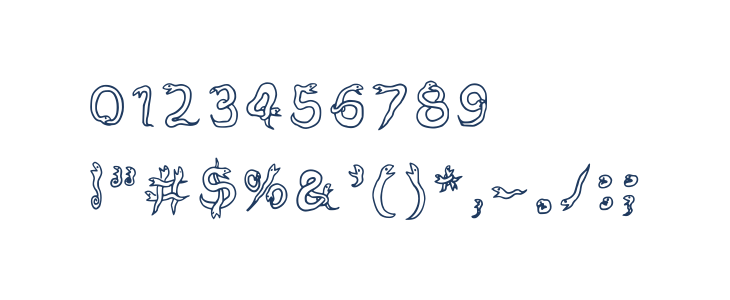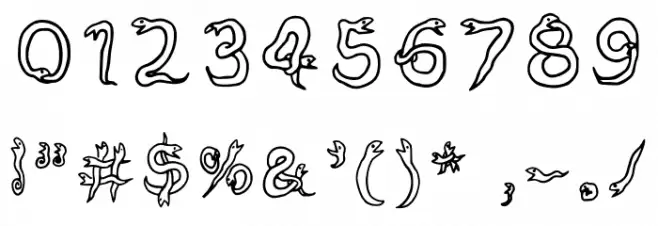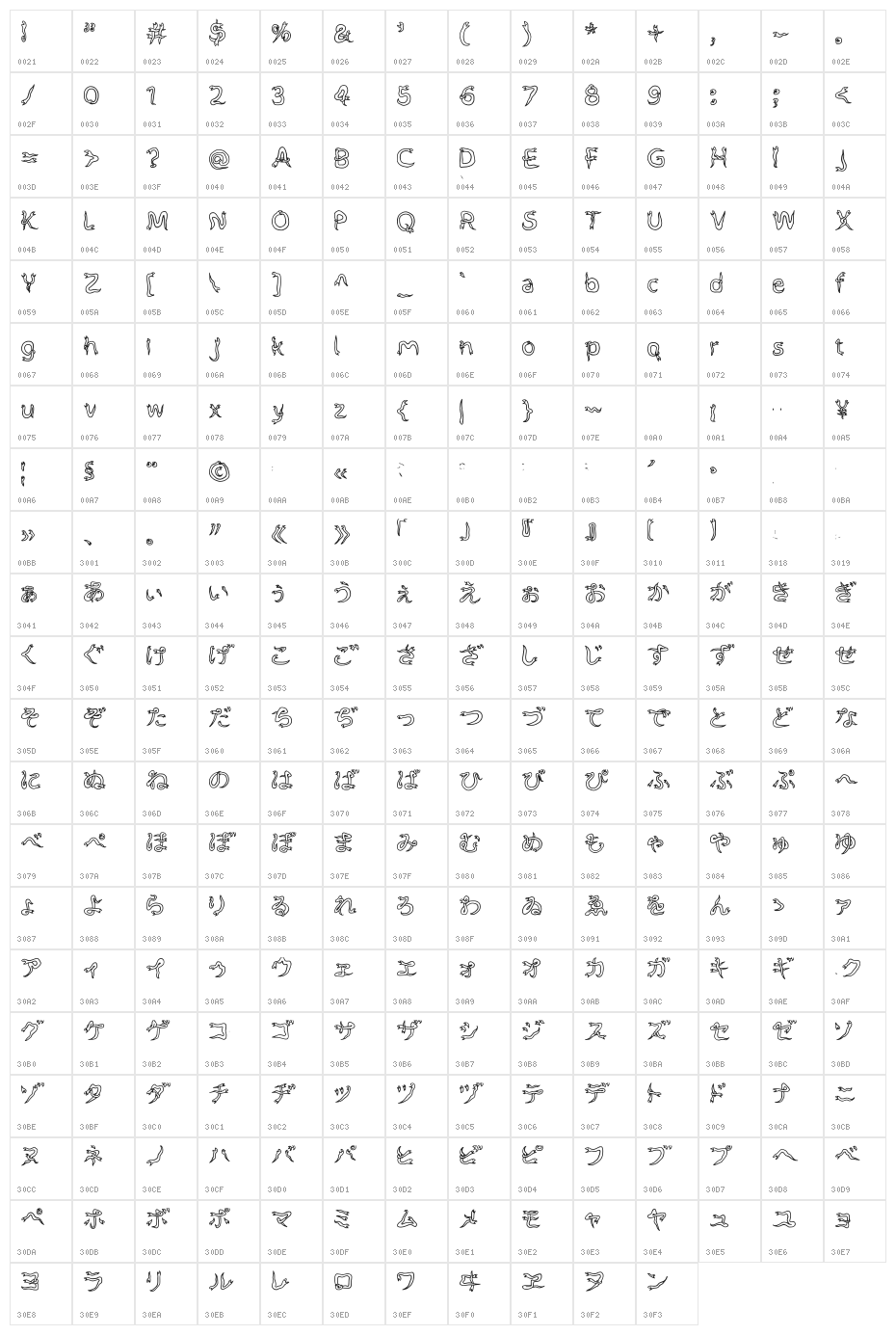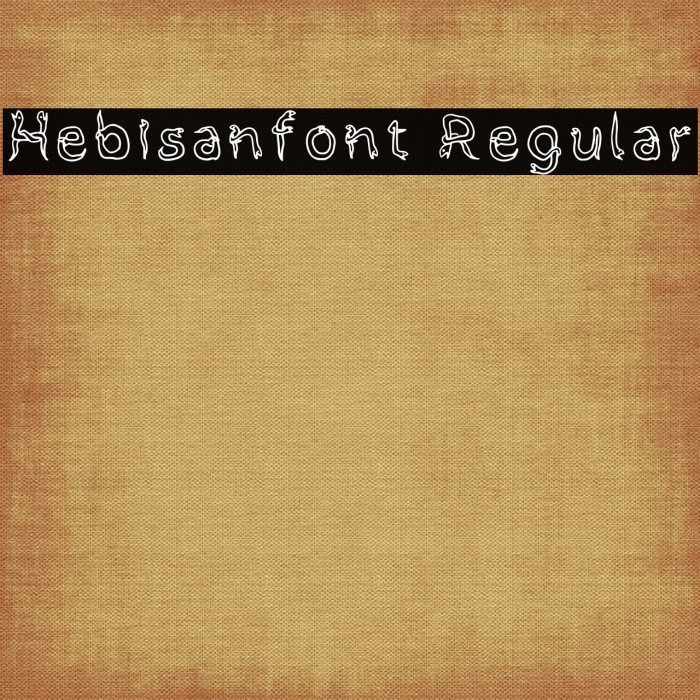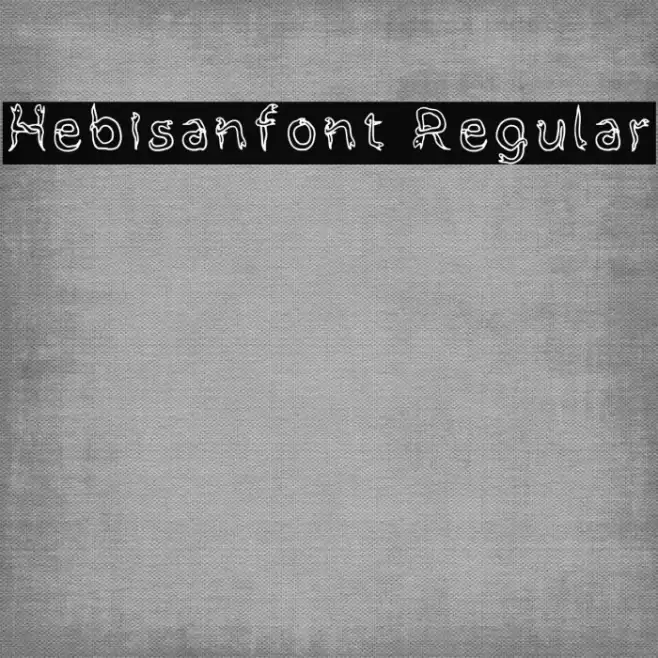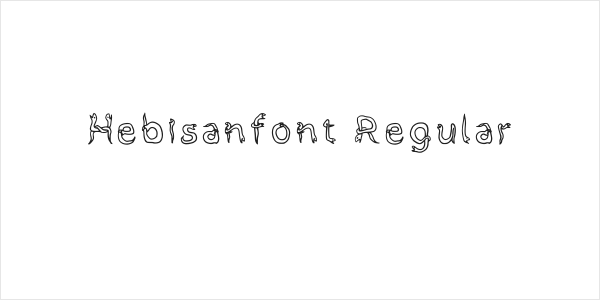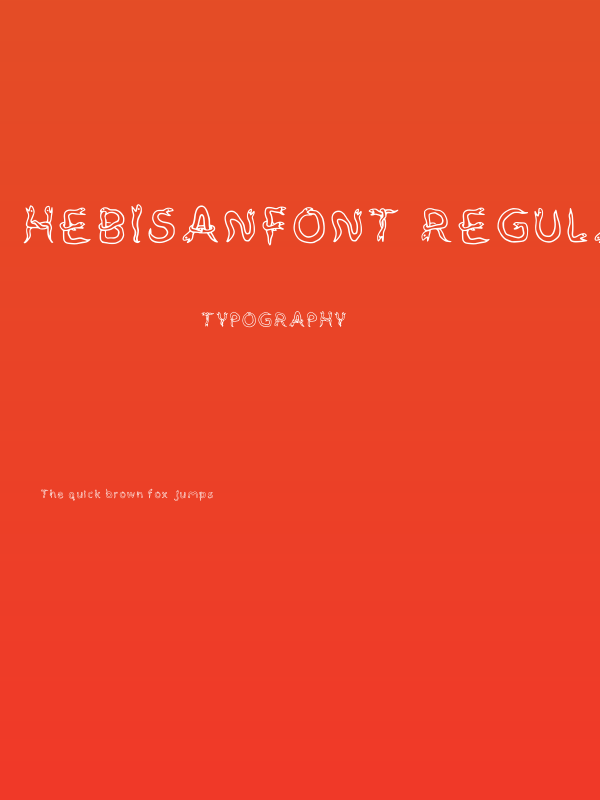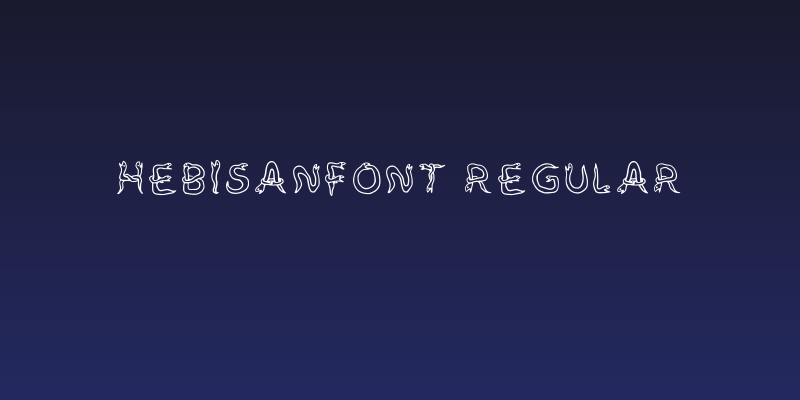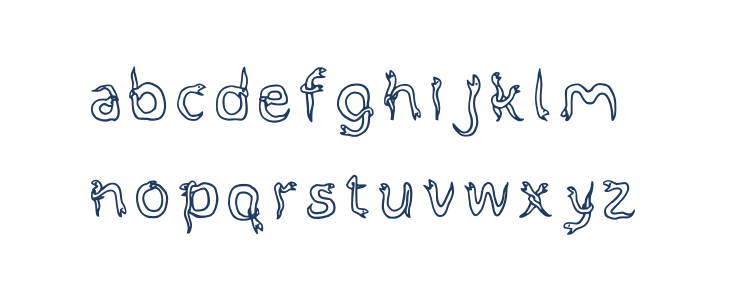
Hebisanfont Regular Font
Hebisanfont Regular Description
This font features a unique, decorative style with each character resembling a playful, serpentine form. The letters have a whimsical, organic appearance, with curves and twists that mimic the movement of a snake. The uppercase and lowercase letters maintain this theme, creating a cohesive and imaginative look. The numbers and special characters follow the same design, ensuring consistency throughout. The font's intricate details make it stand out, offering a creative and artistic flair that is both eye-catching and memorable.
| Use Case | Logos, Posters, Creative Titles |
| Proposed Projects | Ideal for creative projects such as children's book covers, fantasy-themed posters, or unique branding materials. |